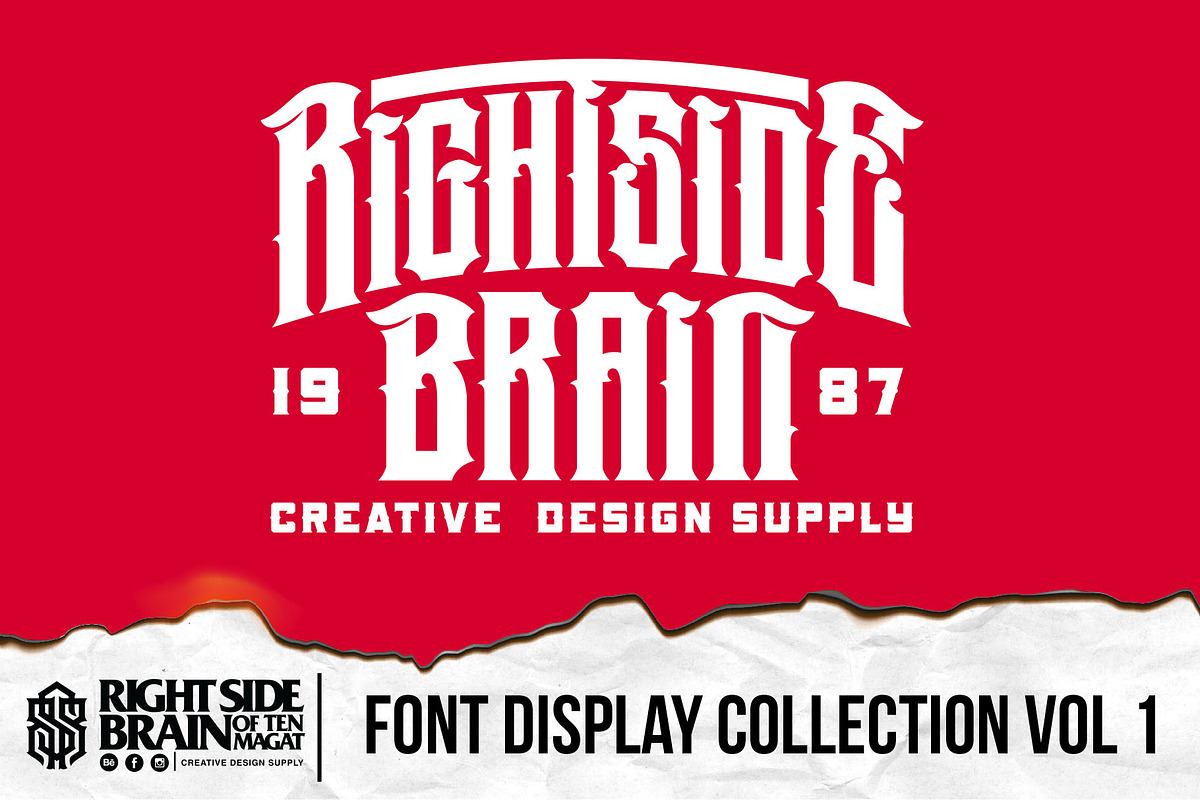
RSB - Font Display Collection Vol 1 Free Download
RSB - Font Display Collection Vol 1 Free Download is a carefully curated collection of unique display fonts that bring a bold and stylish flair to your creative projects. With a mix of modern, vintage, and decorative styles, this bundle is perfect for branding, logos, posters, social media graphics, product packaging, and any design that needs a strong visual impact.
The collection includes a variety of fonts with different character sets, making it versatile for a wide range of design needs. Whether you're looking for something elegant, playful, or edgy, RSB’s display fonts will add personality and style to your typography.